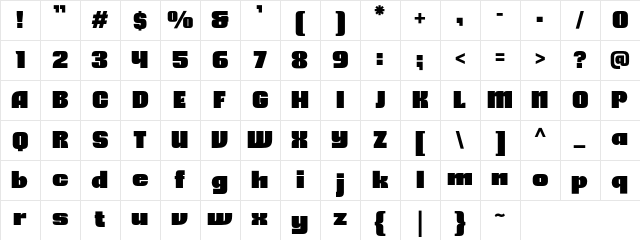
Aremic is a composed and adaptable typeface that performs quietly and consistently across a wide range of design contexts.
Pro Tip: Use Aremic in both headline and body roles to test its range before committing to a single application.